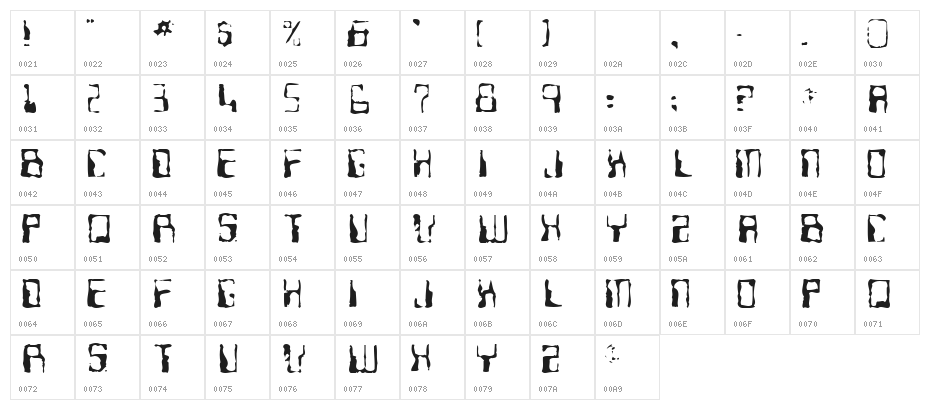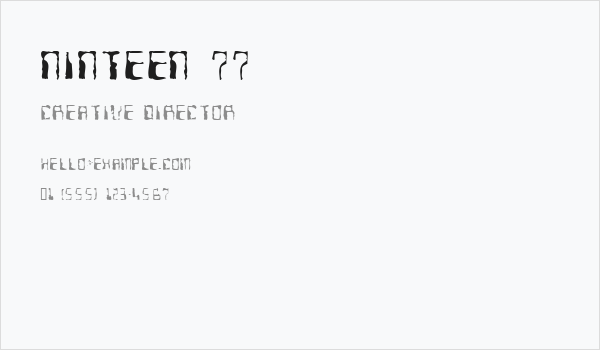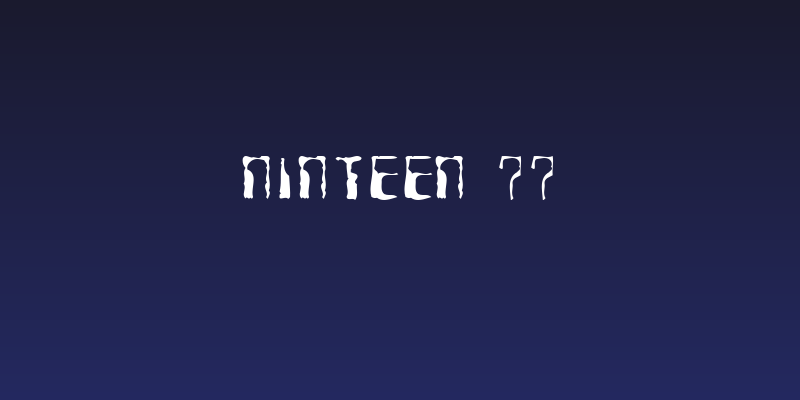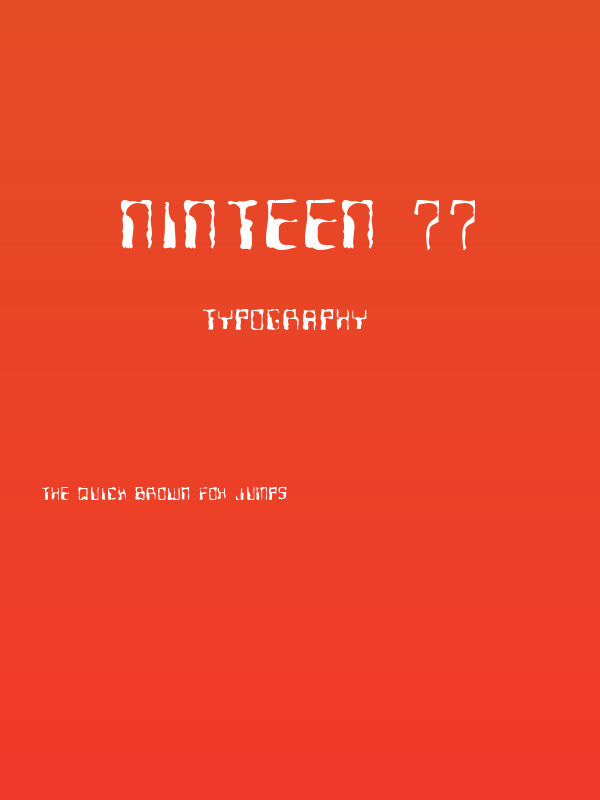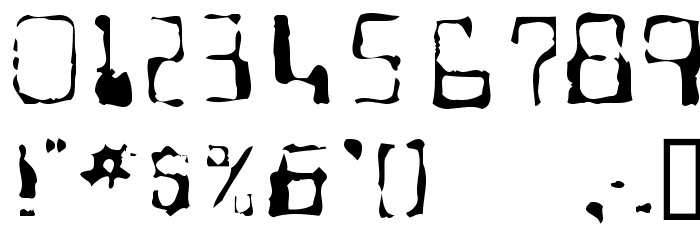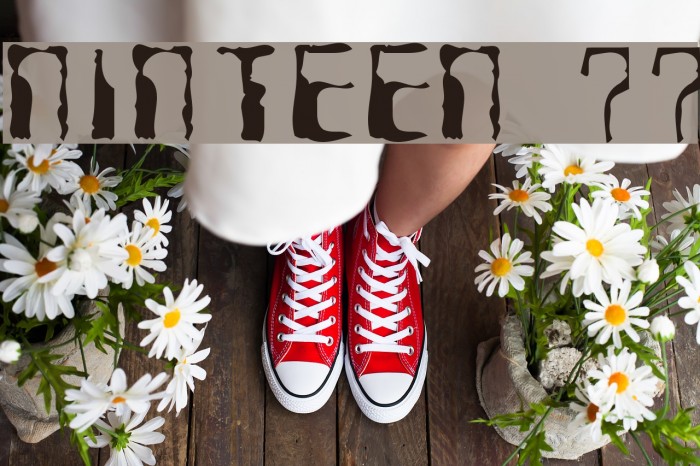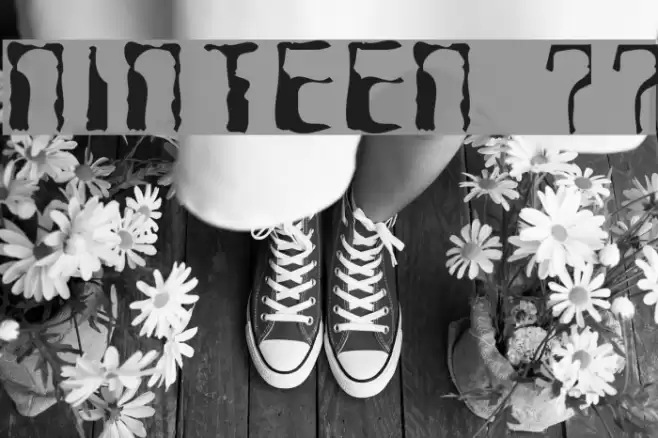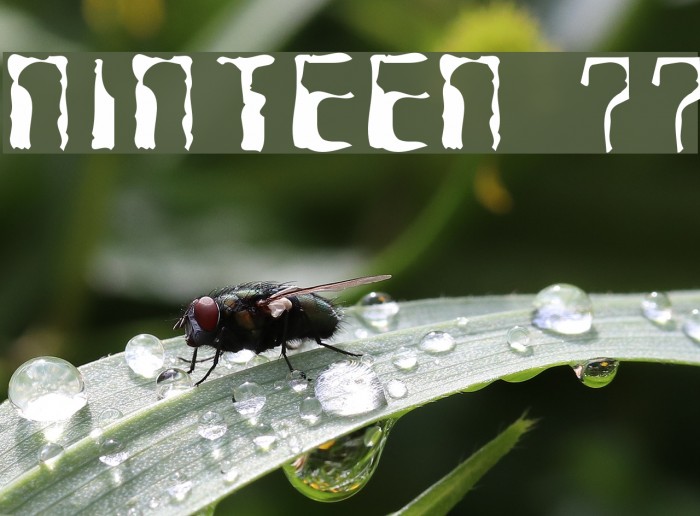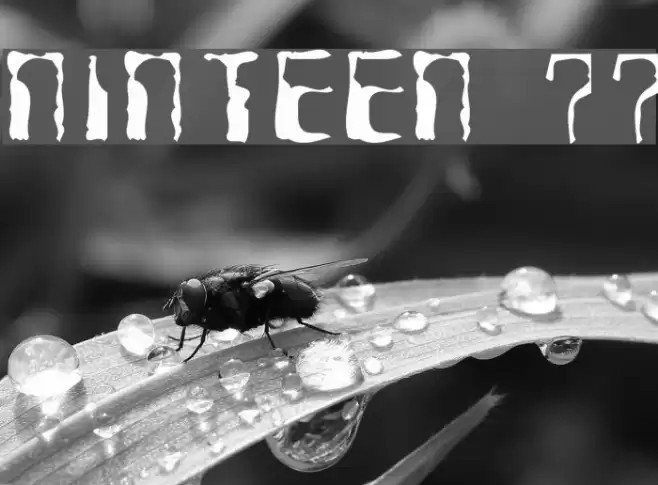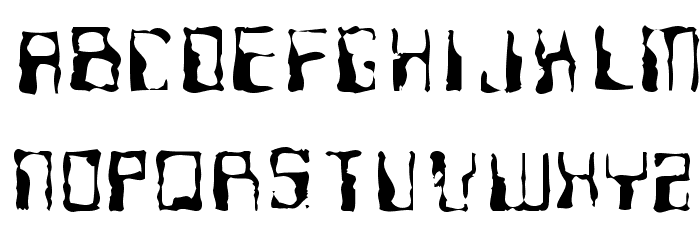
Ninteen 77 Font
Ninteen 77 Description
This font features a unique, distressed style with a bold and irregular appearance, reminiscent of a grunge or weathered aesthetic. The characters are heavily stylized with uneven edges and varying thickness, giving them a dynamic and chaotic look. This design creates a sense of movement and energy, making it stand out in any context. The uppercase and lowercase letters maintain a consistent theme, while the numbers and special characters follow the same rugged style, ensuring a cohesive look across all text elements.
| Proposed Projects | Ideal for music album covers, edgy posters, urban-themed designs, and any project requiring a bold, unconventional look. |